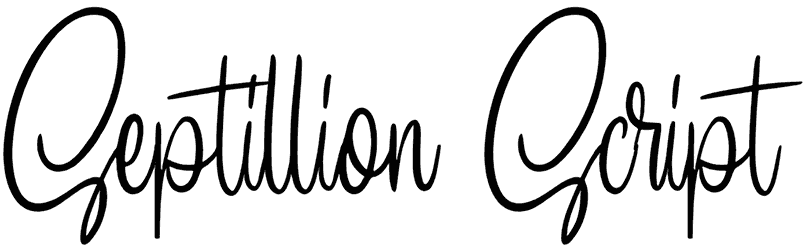
Septillion Script Font
In addition to the fact that the characters are connected, the Septillion Script font is a little illegible. The combination of small and large characters can allow you to make great choices in designing wedding and birthday invitation cards. The sizes of small characters are much smaller than large characters, and this contrast helps you create different designs with this handwritten font.